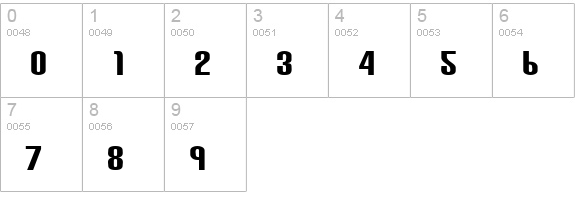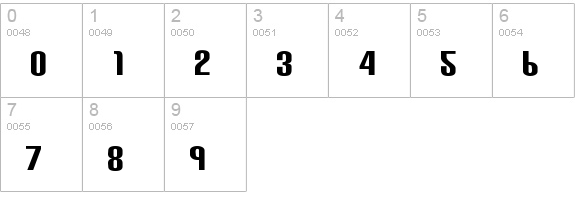
Introducing Carbon Block font, a versatile and modern typeface that exudes sophistication and style. With its bold and clean lines, Carbon Block is perfect for a wide range of design projects, from logos to posters to websites. This font offers a sleek and professional look that will make your text stand out with confidence. What's even better is that Carbon Block is available for free download at FontsMarket.com. Yes, you read that right - this high-quality font can be yours at no cost at all. So why wait? Enhance your designs with Carbon Block today and elevate your creative projects to the next level.